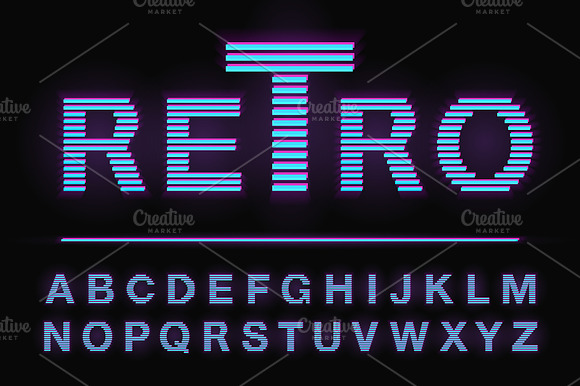
80's retro neon light style font
80's and 90's retro neon light style glowing line font isolated on transparent background. Sci-Fi Universe alphabet. Screen vintage TV glitch VHS effect. Vector illustration
Why 80's retro neon light style font is worth a look
80's retro neon light style font by PhotoVector fits naturally into Branding, posters, packaging, typography.